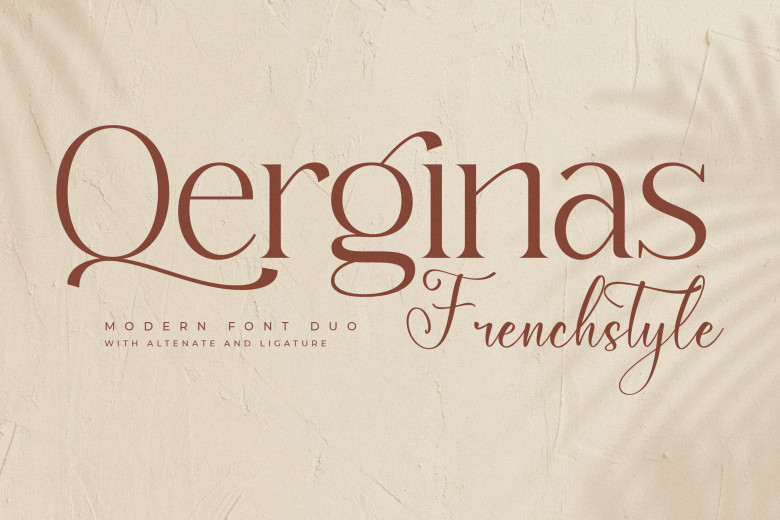
Qerginas Frenchstyle Font
Qerginas Frenchstyle is an eye-catching serif and script font that stands out in style and modernity. Perfect for sophisticated logo designs, book/film titles designs, fashion magazines clothing lines, lettering quotes or lettering quotes with quotes etc, Qerginas Frenchstyle offers something special.
Qerginas Frenchstyle Font Duo